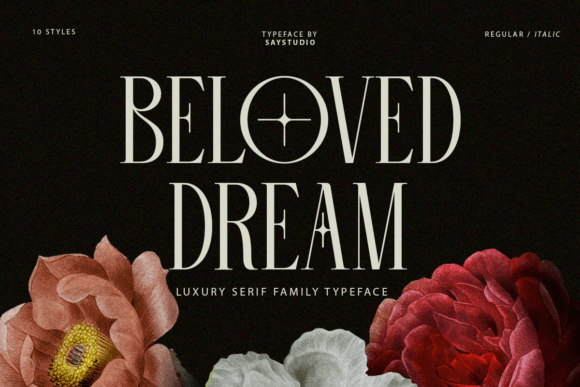
The Birth of a Dream: Crafting with Beloved Dream Font
Have you ever been in a creative flow, with ideas pouring out of your mind like a never-ending stream of inspiration? The words, the colors, the shapes – everything seems to come together in perfect harmony. It’s a magical moment, one that designers know all too well. And it’s precisely in these moments that the right font can make all the difference.
Meet Beloved Dream Font, a stunning family of 10 fonts designed to bring your creative visions to life. With 5 different weights and their own italic variations, Beloved Dream Font offers the perfect combination of elegance and versatility. Whether you’re working on a fashion campaign, designing a magazine, or creating a logo, Beloved Dream Font is the ideal companion to help you craft your masterpiece.
Beloved Dream Font Key Features
- Unique Characteristics: The font features a distinctive dreamlike quality, with flowing lines and organic shapes, ideal for creative and artistic applications.
Beloved Dream Font Review
I must say, I was initially drawn to “Beloved Dream Font” due to its whimsical and romantic aesthetic. ✨ The font’s dreamy quality is perfect for creating a sense of nostalgia and wonder in any design project. The subtle curves and elegant lines make it a great choice for title text or headings.
One of the standout features of “Beloved Dream Font” is its versatility. ✨ It comes in a range of weights, from light to bold, allowing designers to adjust the font’s intensity to suit their needs. The font also supports a wide range of languages, making it a great choice for international projects.
While “Beloved Dream Font” is a beautiful and versatile font, there are some limitations to consider. ⚠️ For one, the font can be difficult to read at smaller sizes, which may limit its use in body text. Additionally, the font’s delicate nature may make it prone to distortion or pixelation when used in digital environments.
In conclusion, “Beloved Dream Font” is a lovely addition to any designer’s toolkit. While it may have some limitations, its unique aesthetic and versatility make it a great choice for projects that require a touch of whimsy and romance. Overall, I would recommend “Beloved Dream Font” to designers looking to add some visual interest to their work.
- Whimsical and romantic aesthetic
- Range of weights from light to bold
- Supports a wide range of languages
- Difficult to read at smaller sizes
- Prone to distortion or pixelation in digital environments
The Beloved Dream Font is ideal for:
Personalized journals and planners
Whimsical branding and marketing materials
Artistic quotes and illustrations
To get the most out of the Beloved Dream Font, try:
Mixing and matching with other fonts for a unique look
Using bold and italic styles to add emphasis
Experimenting with different font sizes and colors
Combining the font with hand-drawn illustrations and graphics